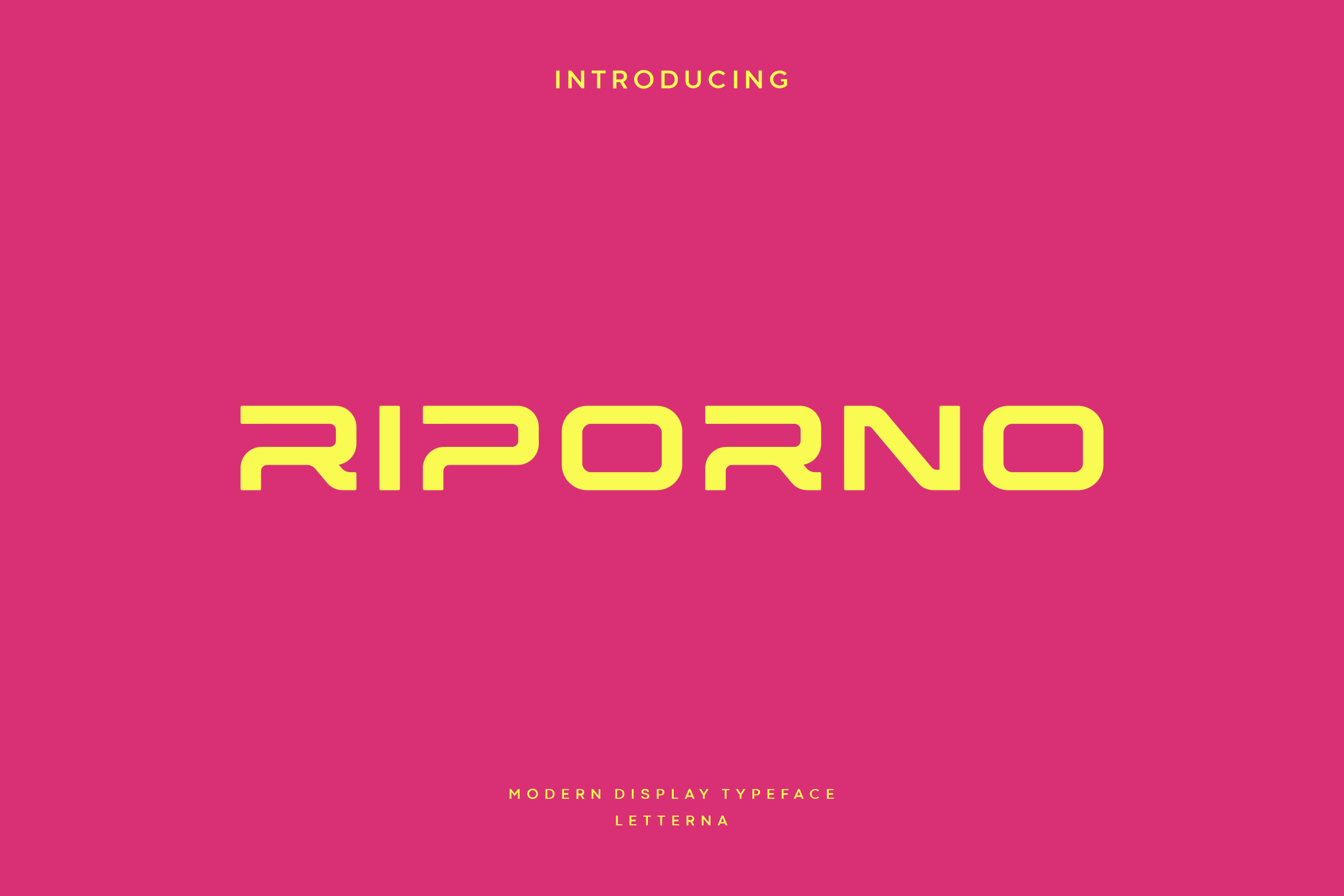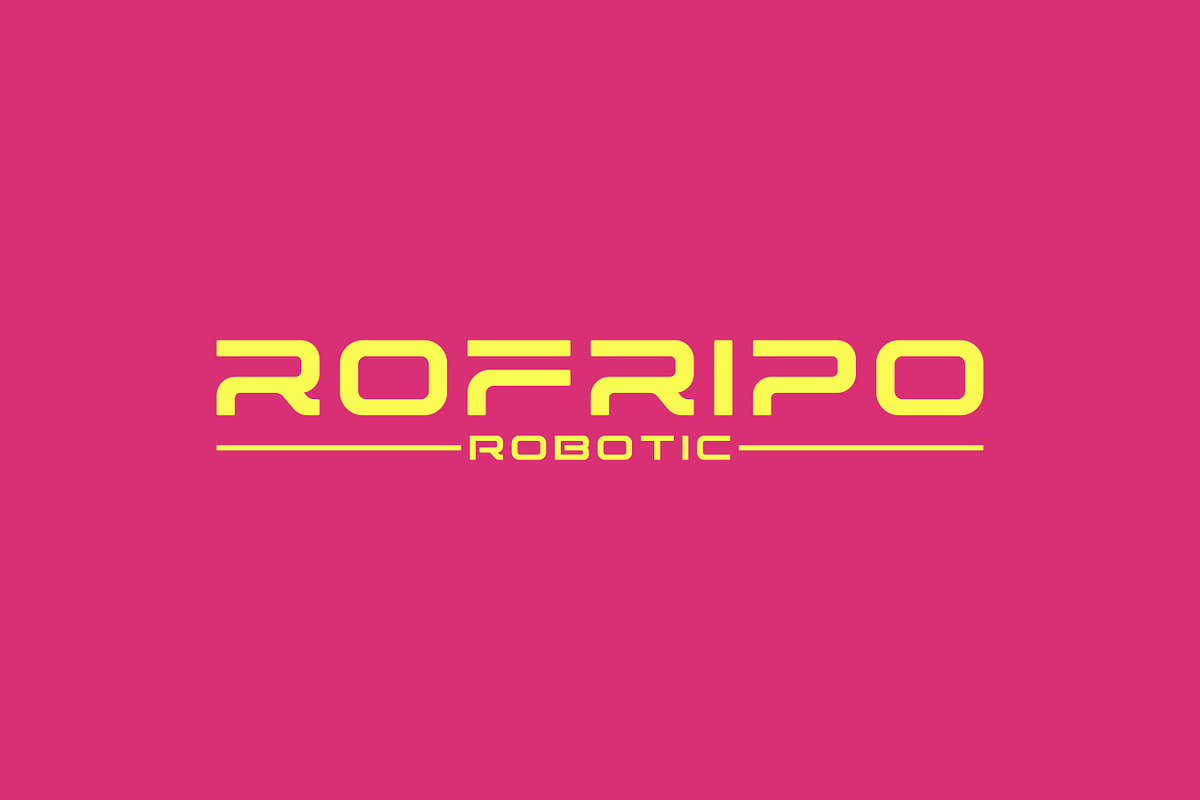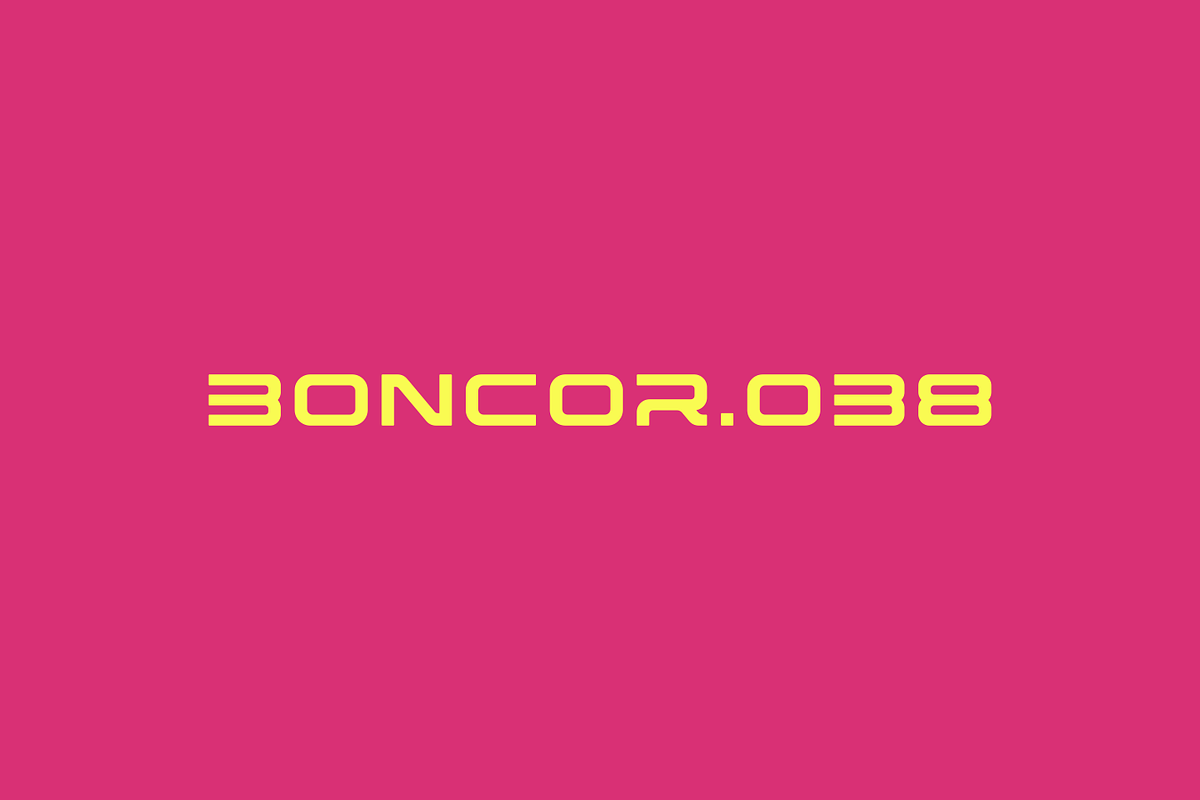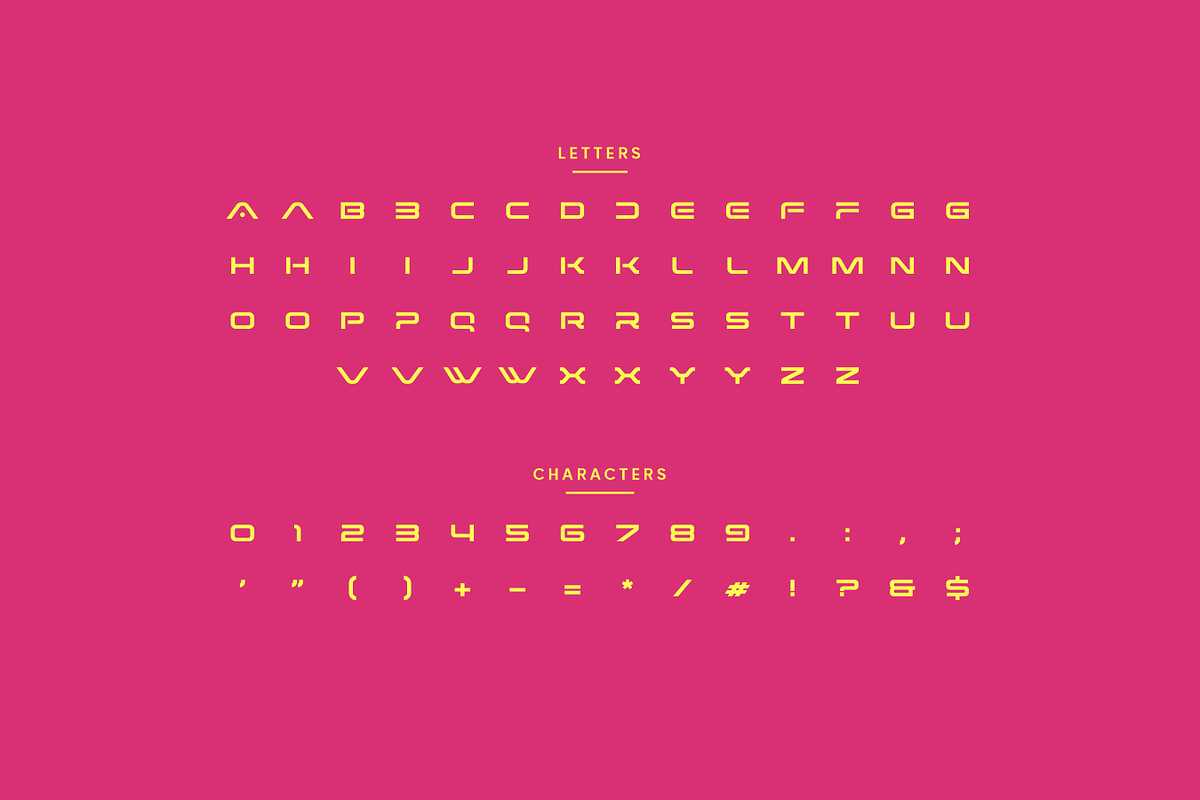
Riporno - Modern Futuristic Typeface
Riporno is a modern futuristic font with unique uppercase, come with all-caps that will make your design looks futuristic and modern. You can use this font for any purpose, especially to make hi-tech logotype, this font is also suitable for science-fiction movie poster. With an elegant and clean appearance that will make it look good when used as a logo design, branding, and various designs that require the feel of the future.